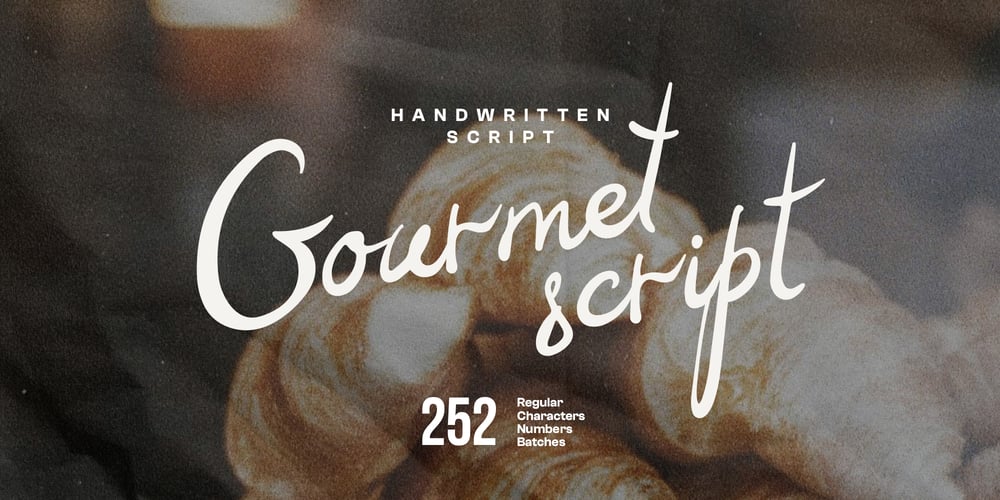
Gourmet Font Family was designed by Tetiana Bunakova and published by Tetiana Bunakova. Gourmet contains 1 styles and family package options. Welcome natural looking handwritten Gourmet script with opentype ligatures for your next design project. Perfect for business and personal purposes. Create packaging design, brand identity, art posters, invitations, restaurant menu and more.